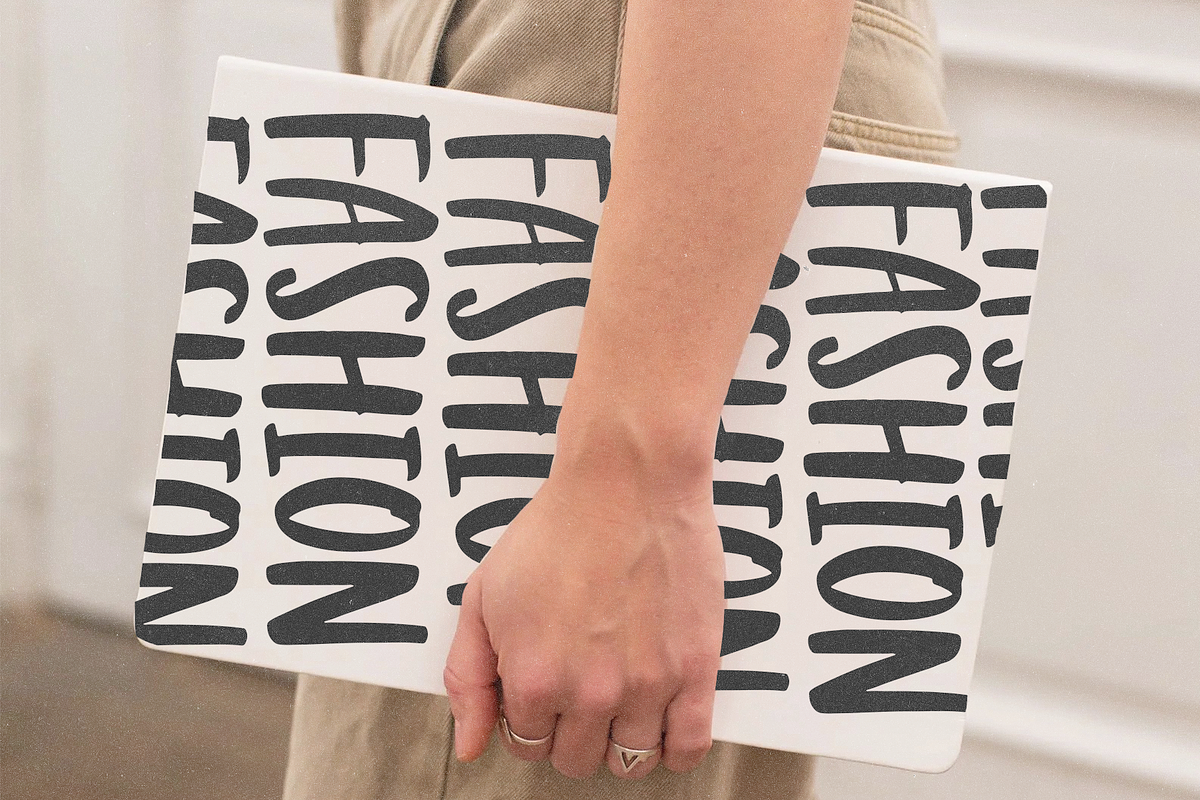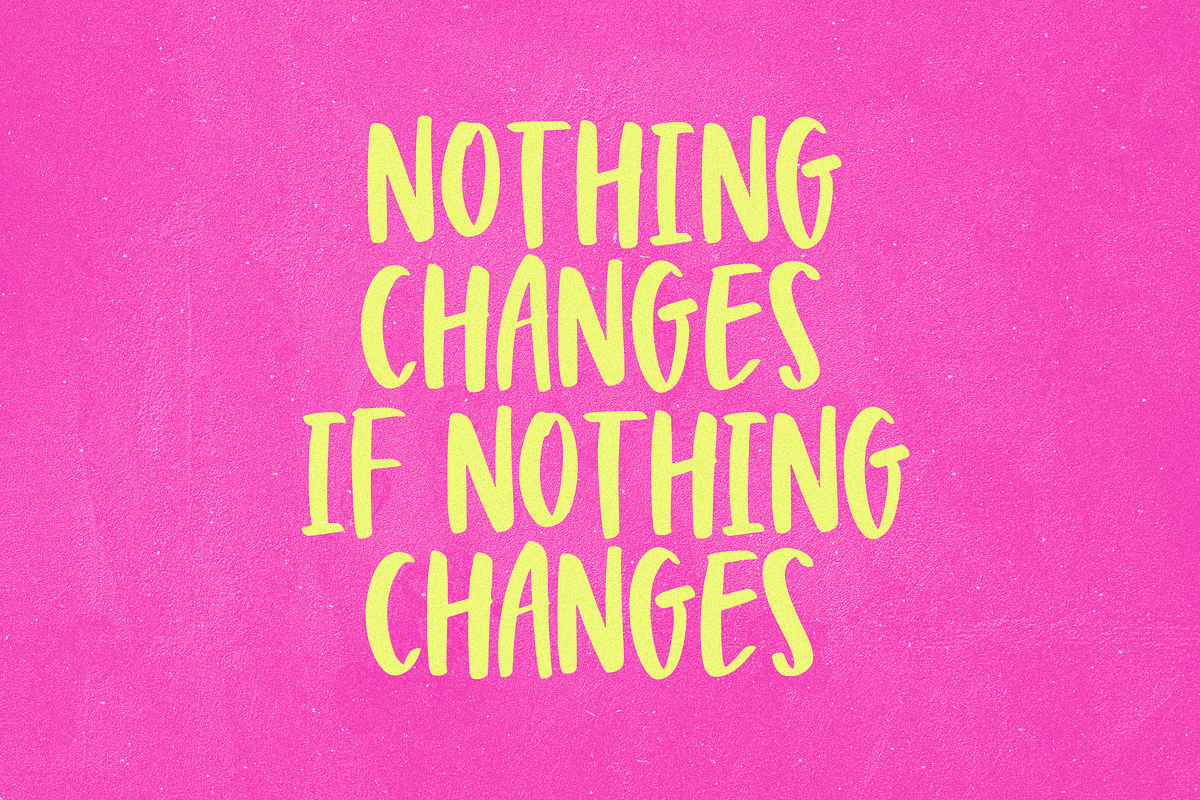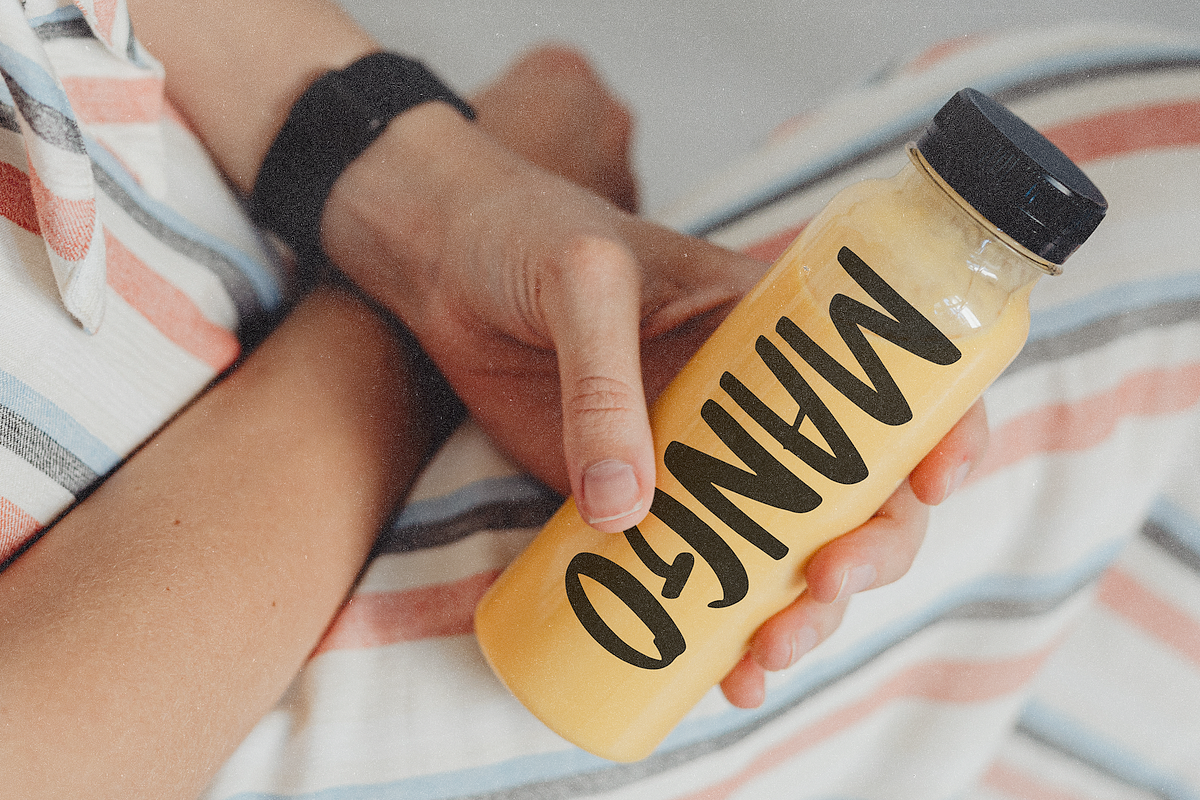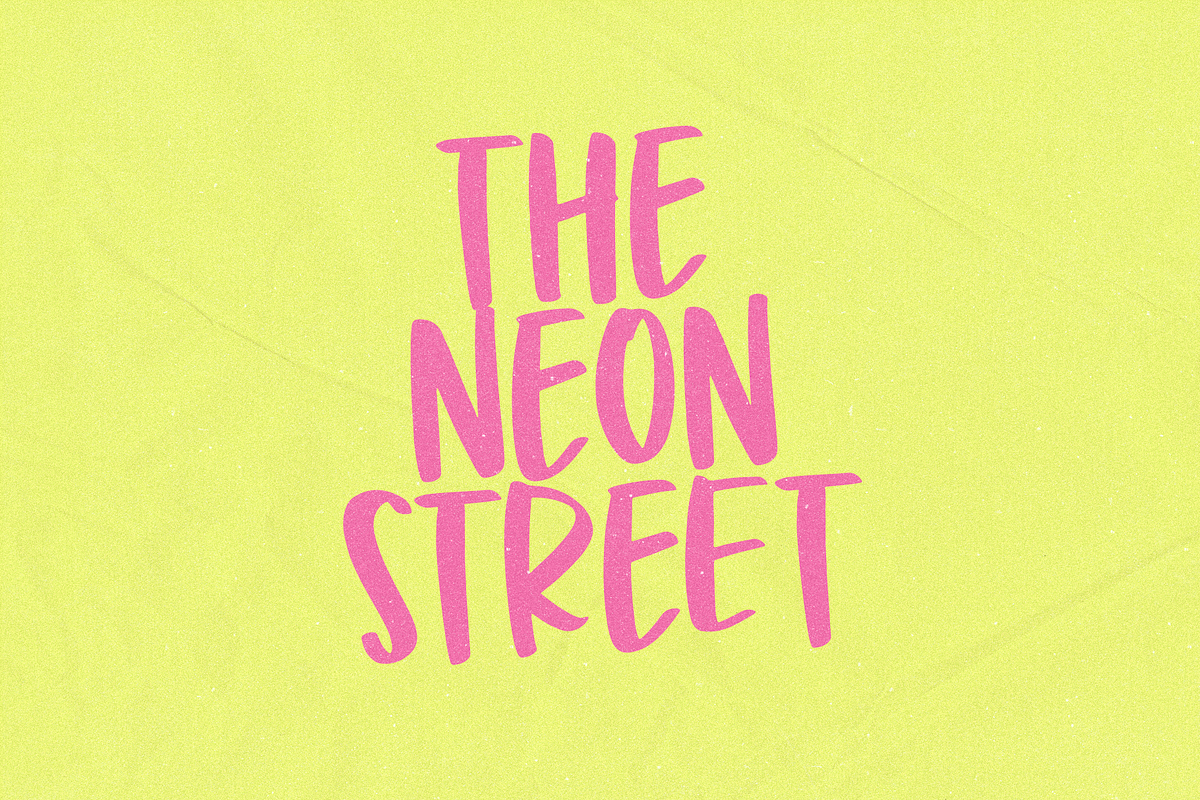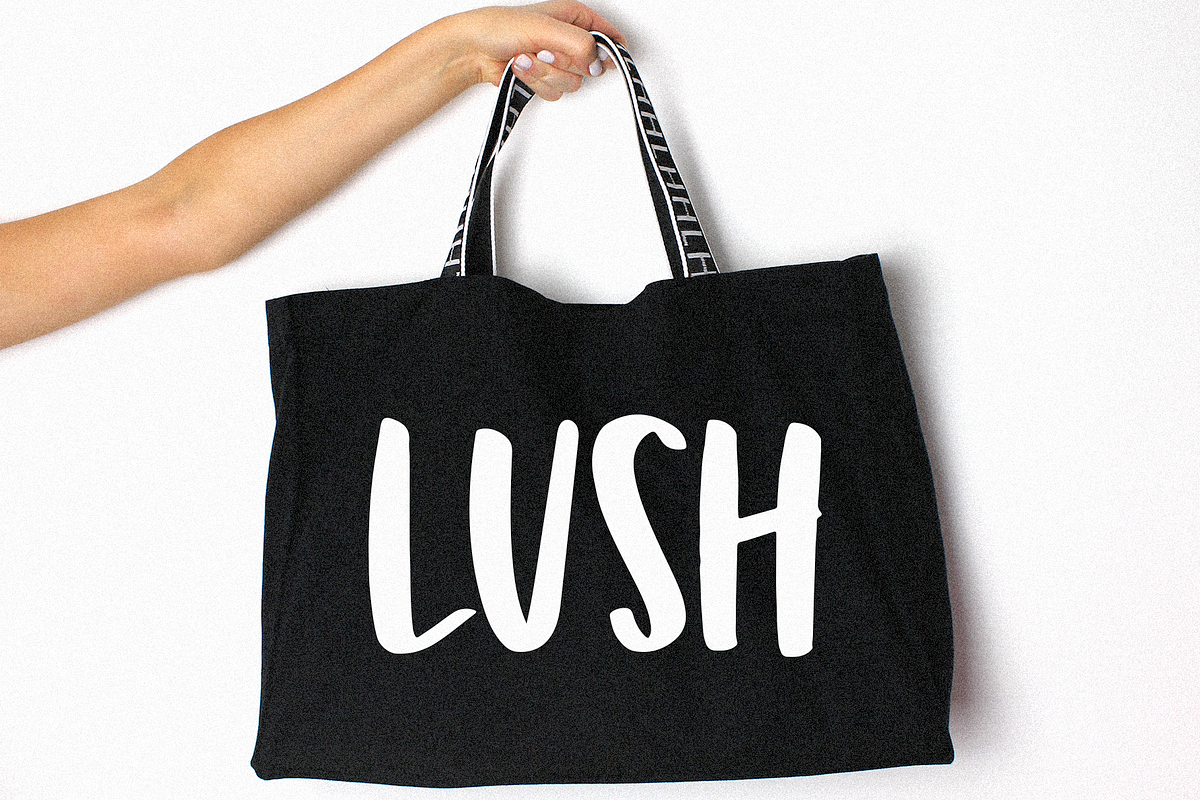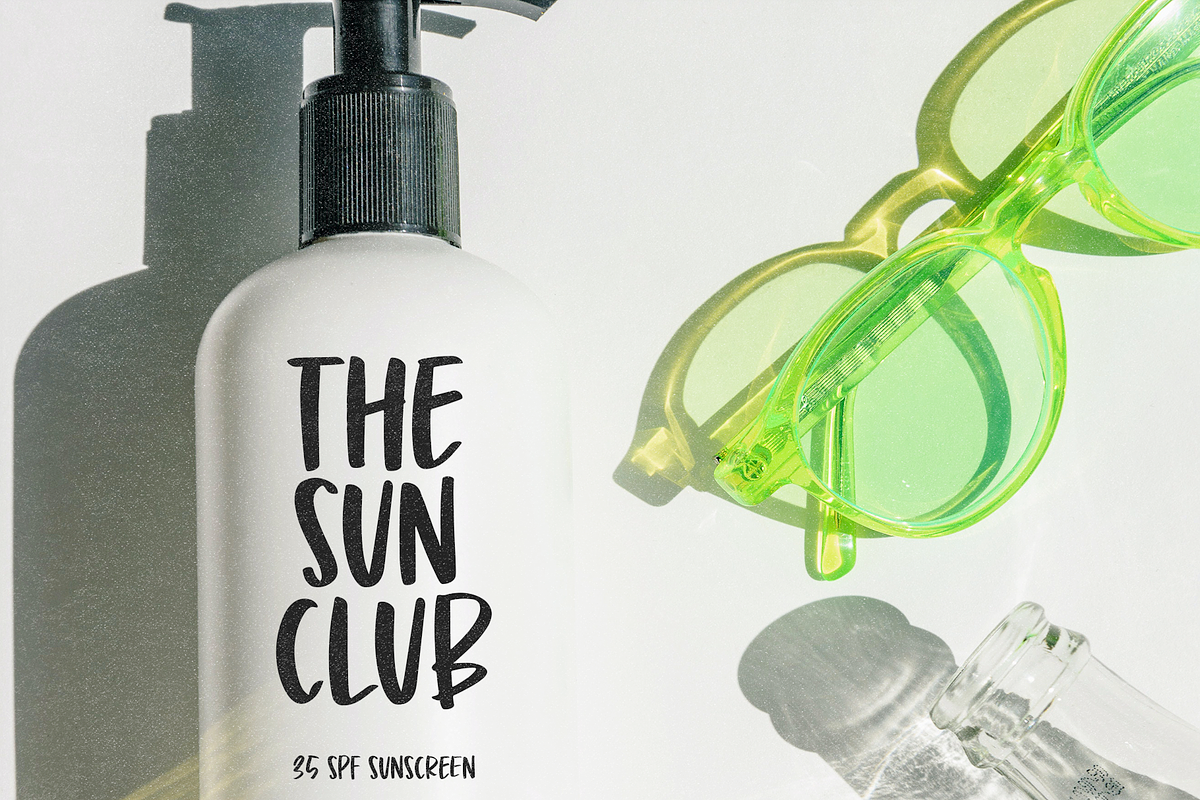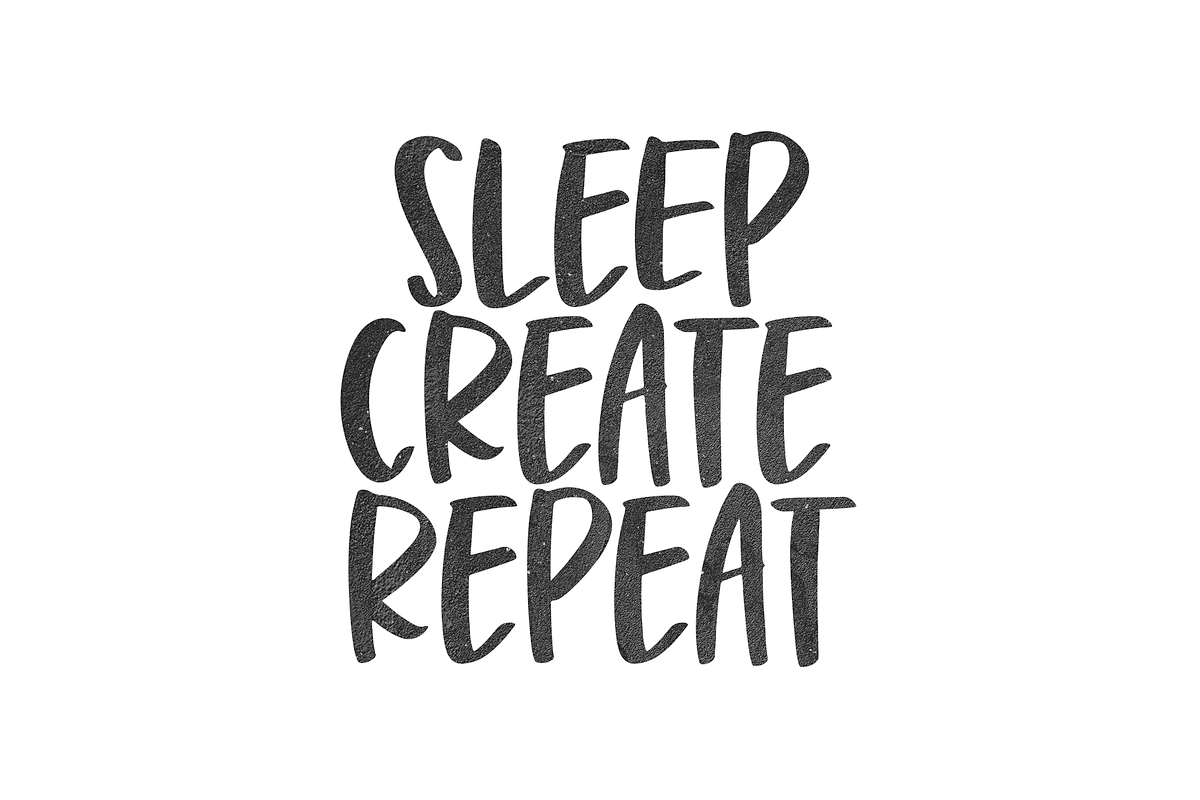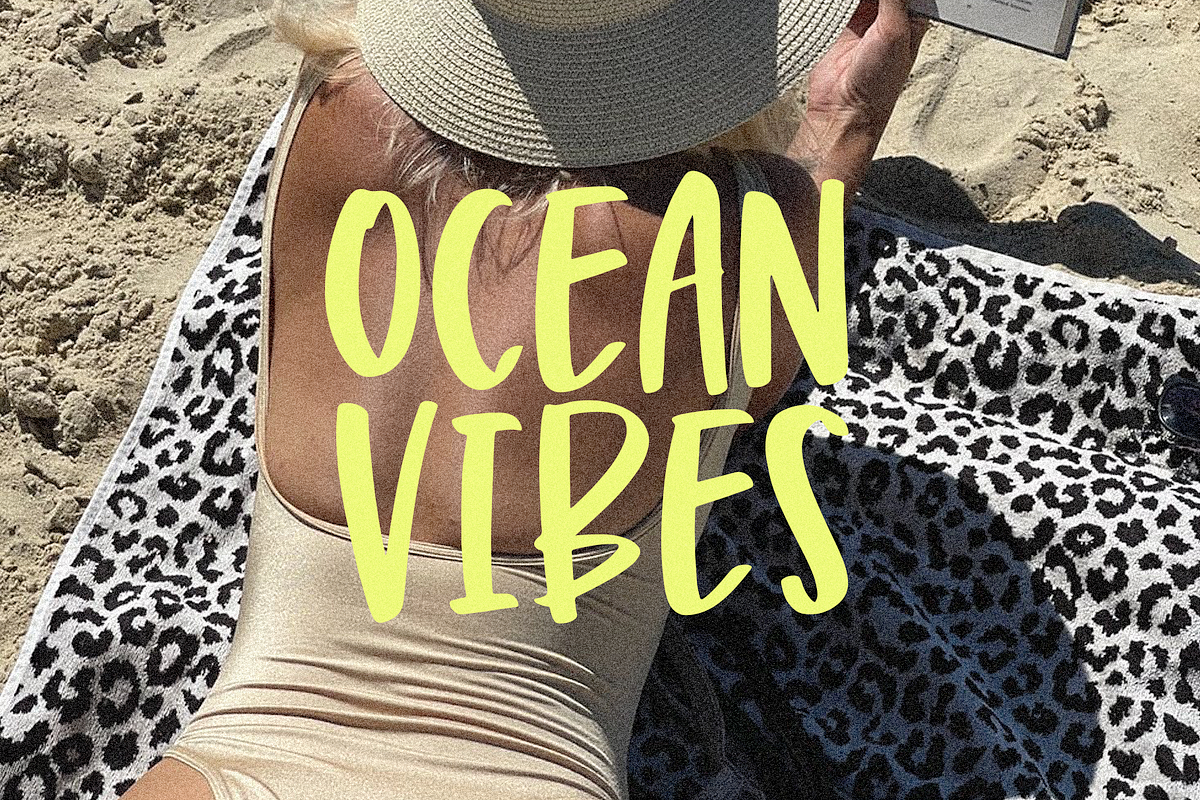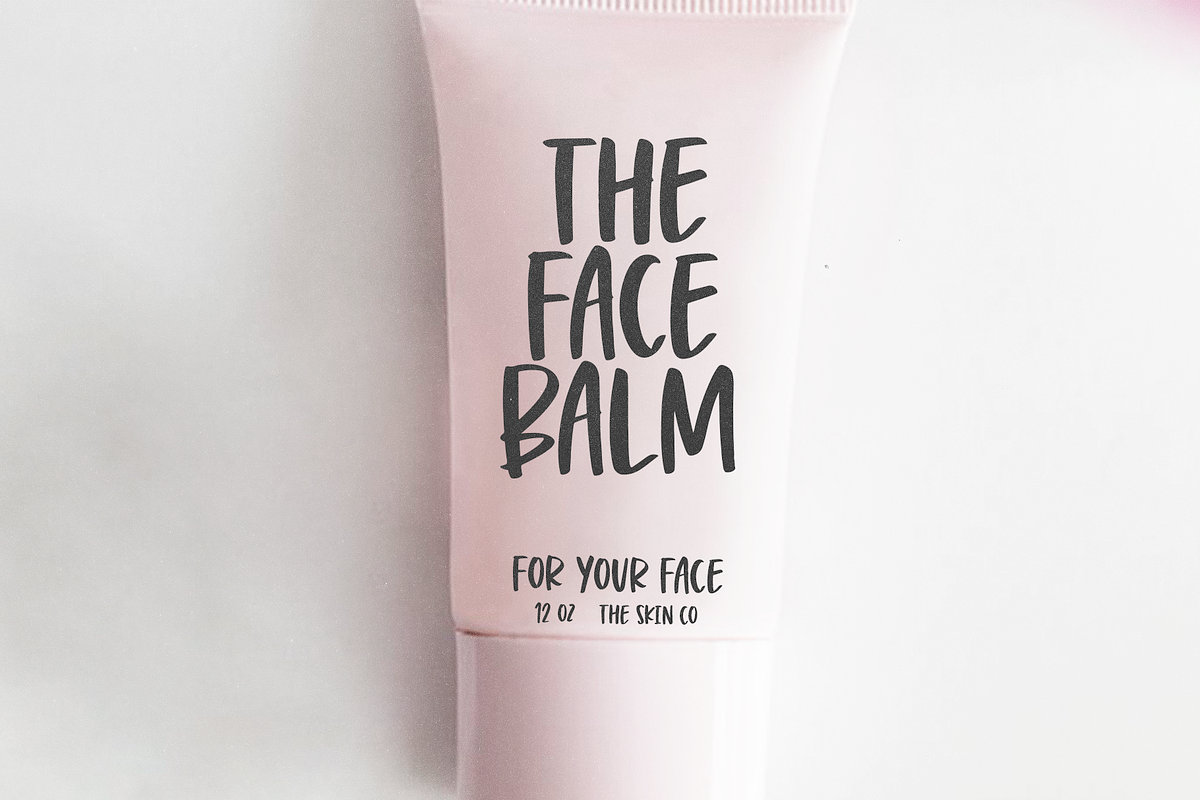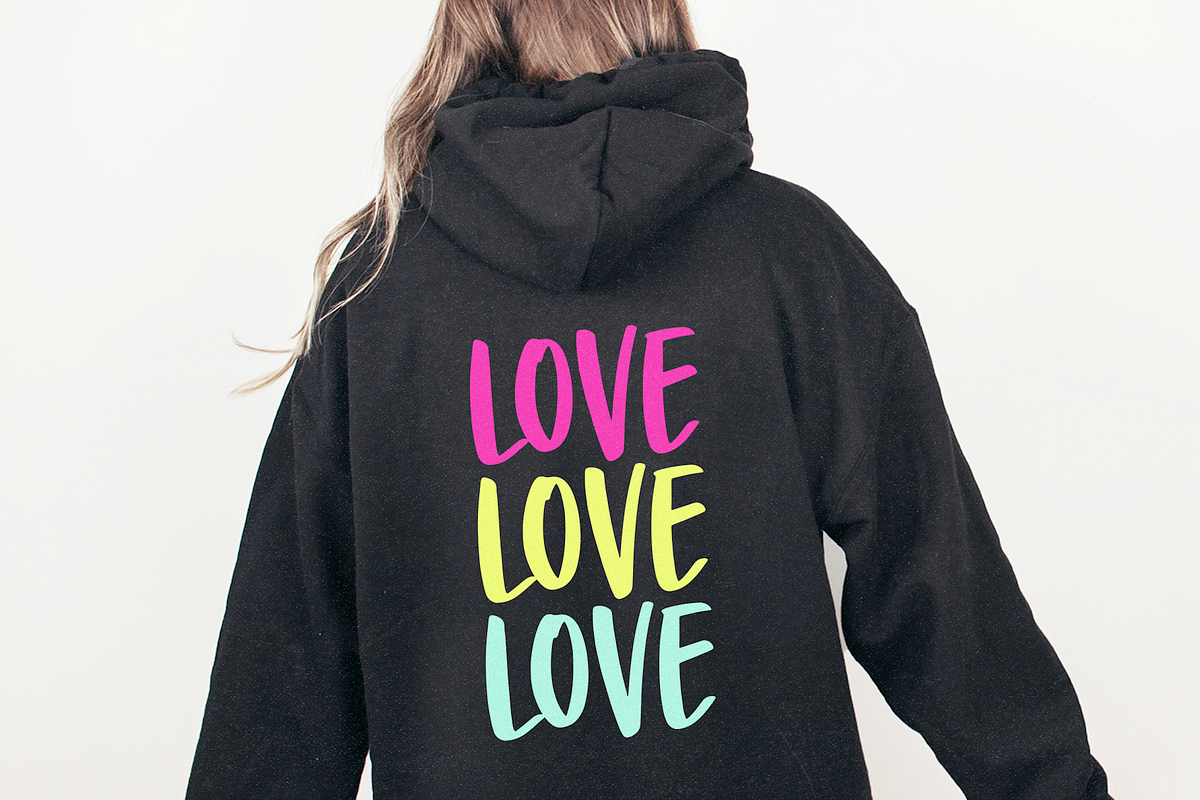
Honey Beach | Handwritten Brush Font
Honey Beach is a handwritten brush font with a cool, carefree vibe.
This all caps font is perfect for branding, logos, labels, advertisements, posters, shirts and more!